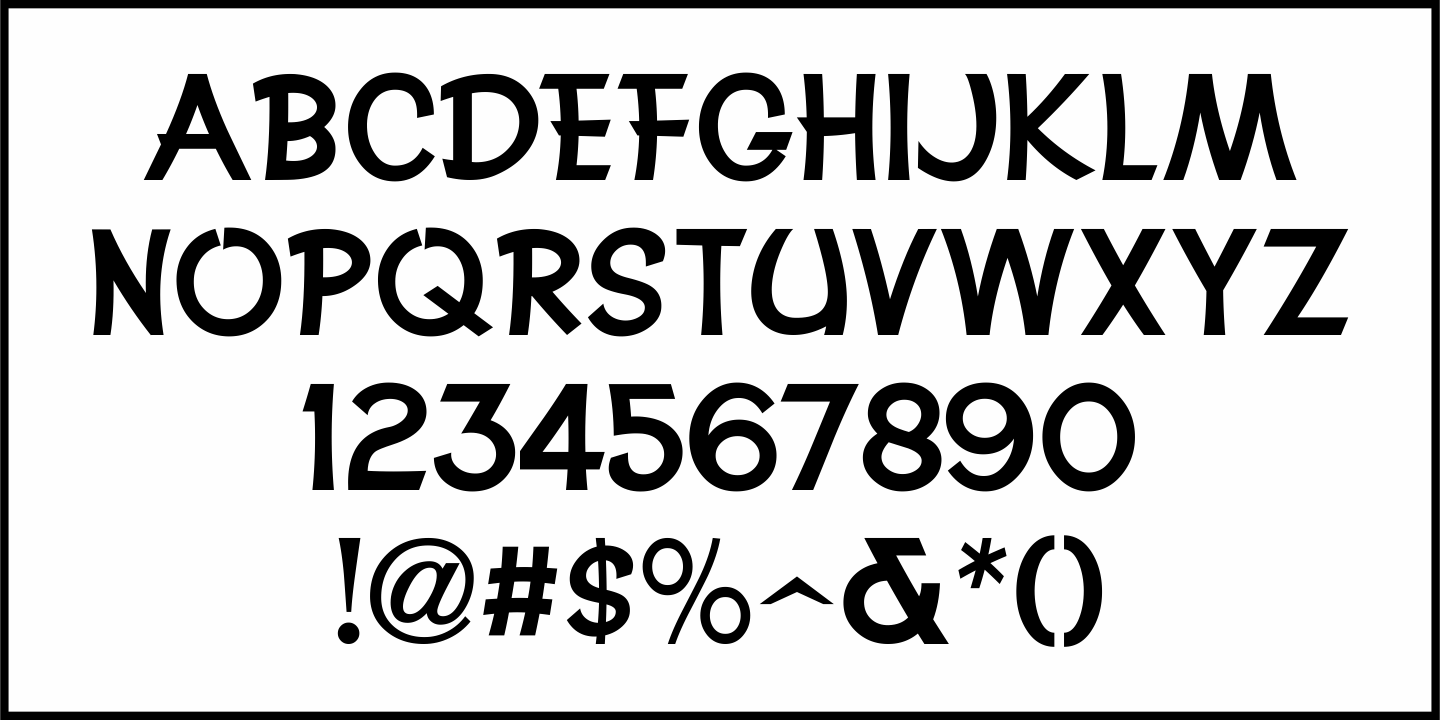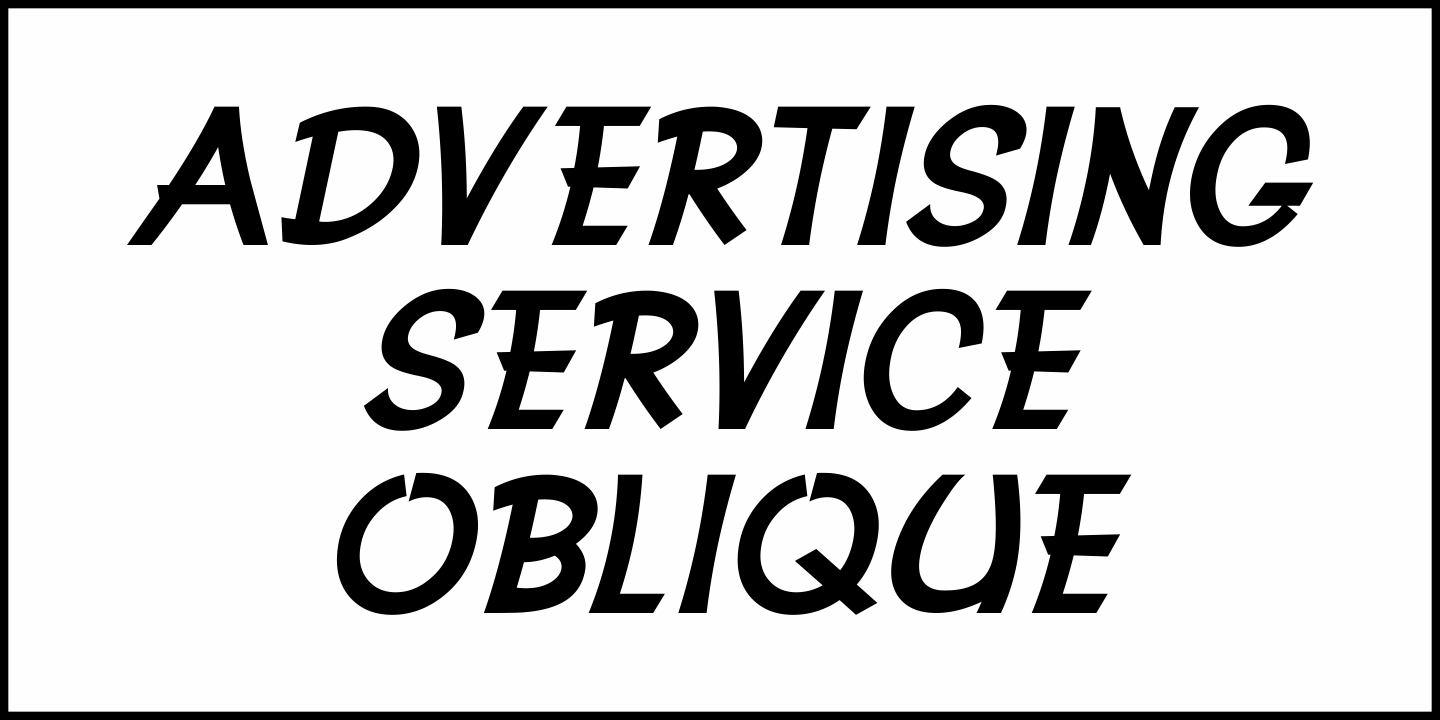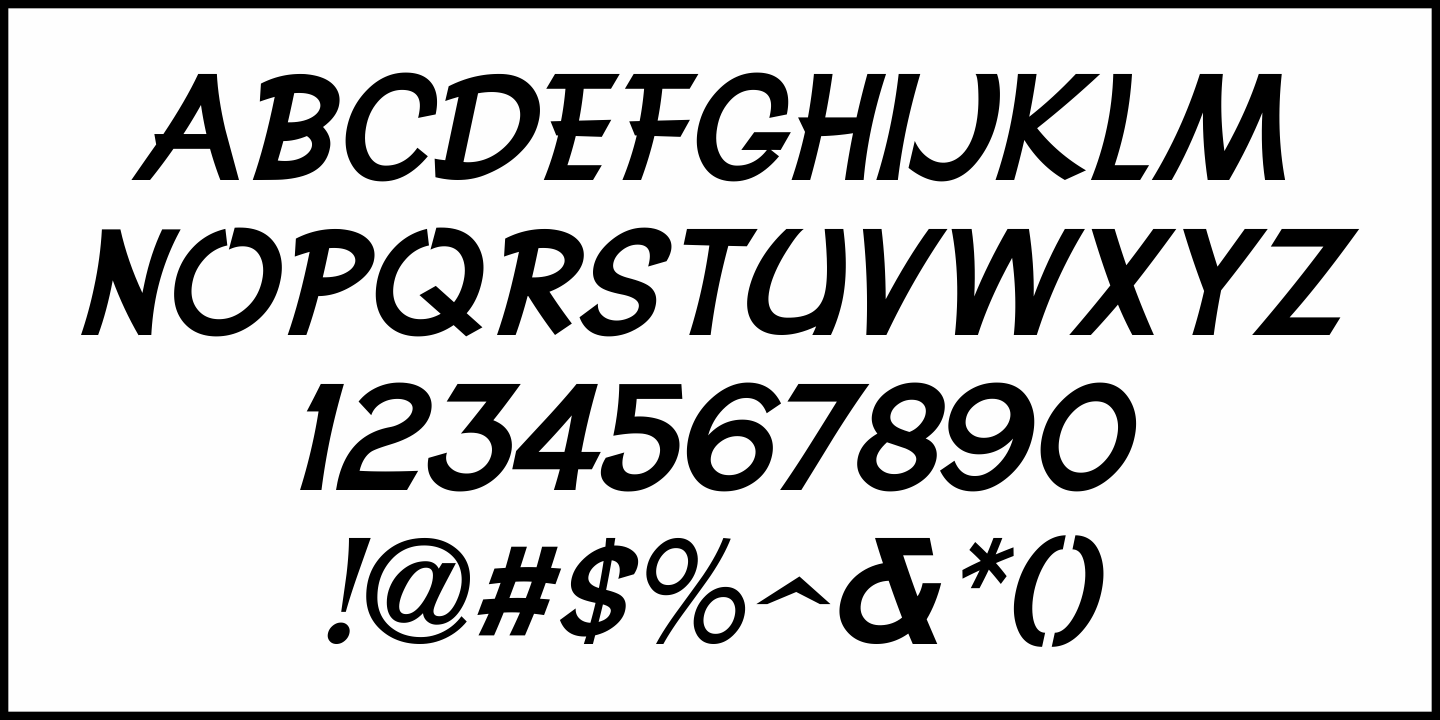
Advertising Service
The November 29,1939 issue of the theater owners' trade magazine "The Exhibitor" carried an ad for National Screen Service. Its ad featured a hand lettered headline in a casual, sans serif style reminiscent of a sign painter's poster text.
This is now available as Advertising Service JNL in both regular and oblique versions.
National Screen Service once specialized in theatrical trailers and advertising materials and advertised heavily in all of the major trade publications.
The company was started in 1920 solely as a producer and distributor of movie trailers. From the 1940s through the 1980s it had exclusive contracts with all of the major studios to handle their promotional items, but by the 1980s its business had shrunk due to changes in the film indutry. It was bought out by Technicolor in 2000.